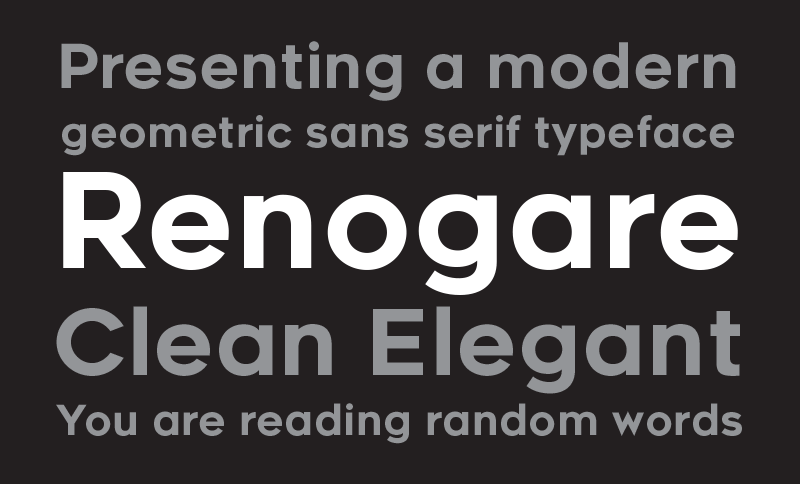
Renogare Font
Renogare is a clean and elegant sans serif font created by Deepak Dogra. Renogare is free for personal use. But if you would like to use it for any commercial purpose, please donate $15 via PayPal by clicking the ‘Donate to author’ button, located below the download link. You would receive a confirmation mail regarding your purchase of the license for the font.
Renogare Sans Serif Font